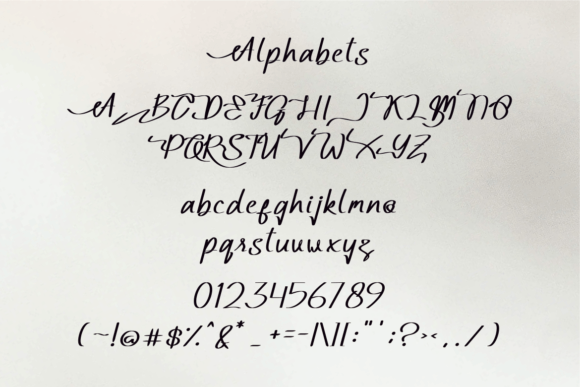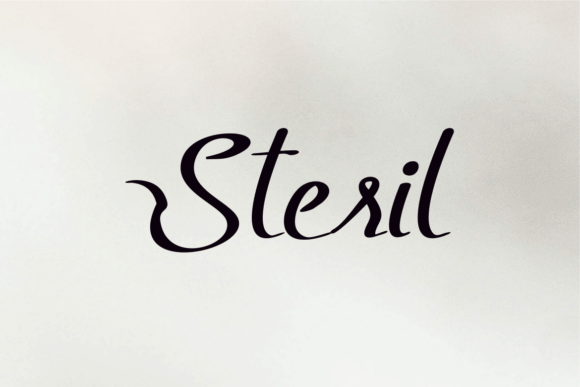
Introduction to Rubbariyas Font Font
Rubbariyas is an elegant, classy, and modern handwritten font.
It’s a great font for fashion, apparel projects, signatures, album covers, logos, branding, magazines, social media, and advertisements, but also works great for other projects .